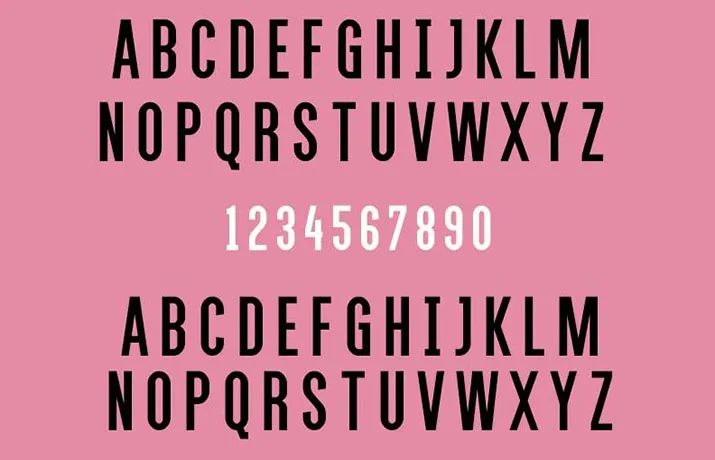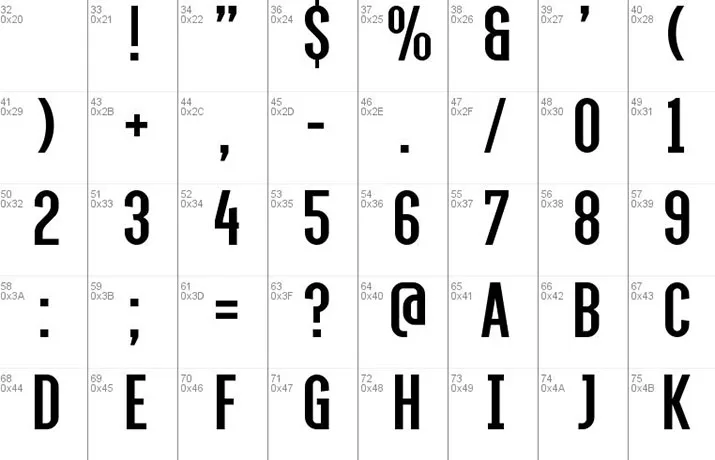
Alegre Sans Font is a basic sans serif typeface that comes with a condensed elegant clean texture. Jayvee Enaguas took charge of designing and sharing it in 2011.
Its structure is made with thick strokes and a clean shape. The designer has slightly increased the height of this beautiful font while keeping the width the same as the standard size.
So, we can say that the designer created it specifically for bold headings. That is why it can easily pair well with other sans-serif or serif fonts.
What is Alegre Sans Font?
Alegre Sans Font is a basic sans serif typeface that comes with a condensed elegant clean texture. Jayvee Enaguas took charge of designing and sharing it in 2011.